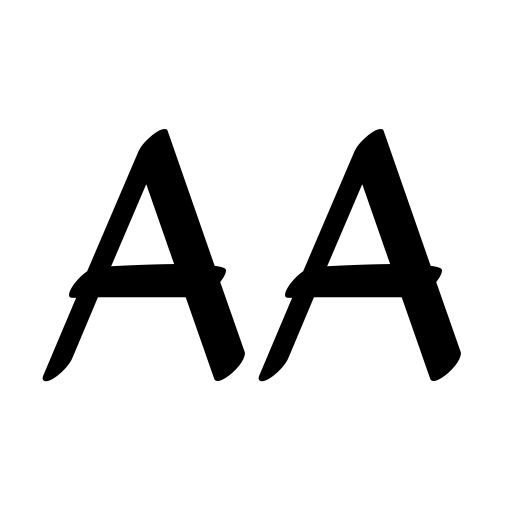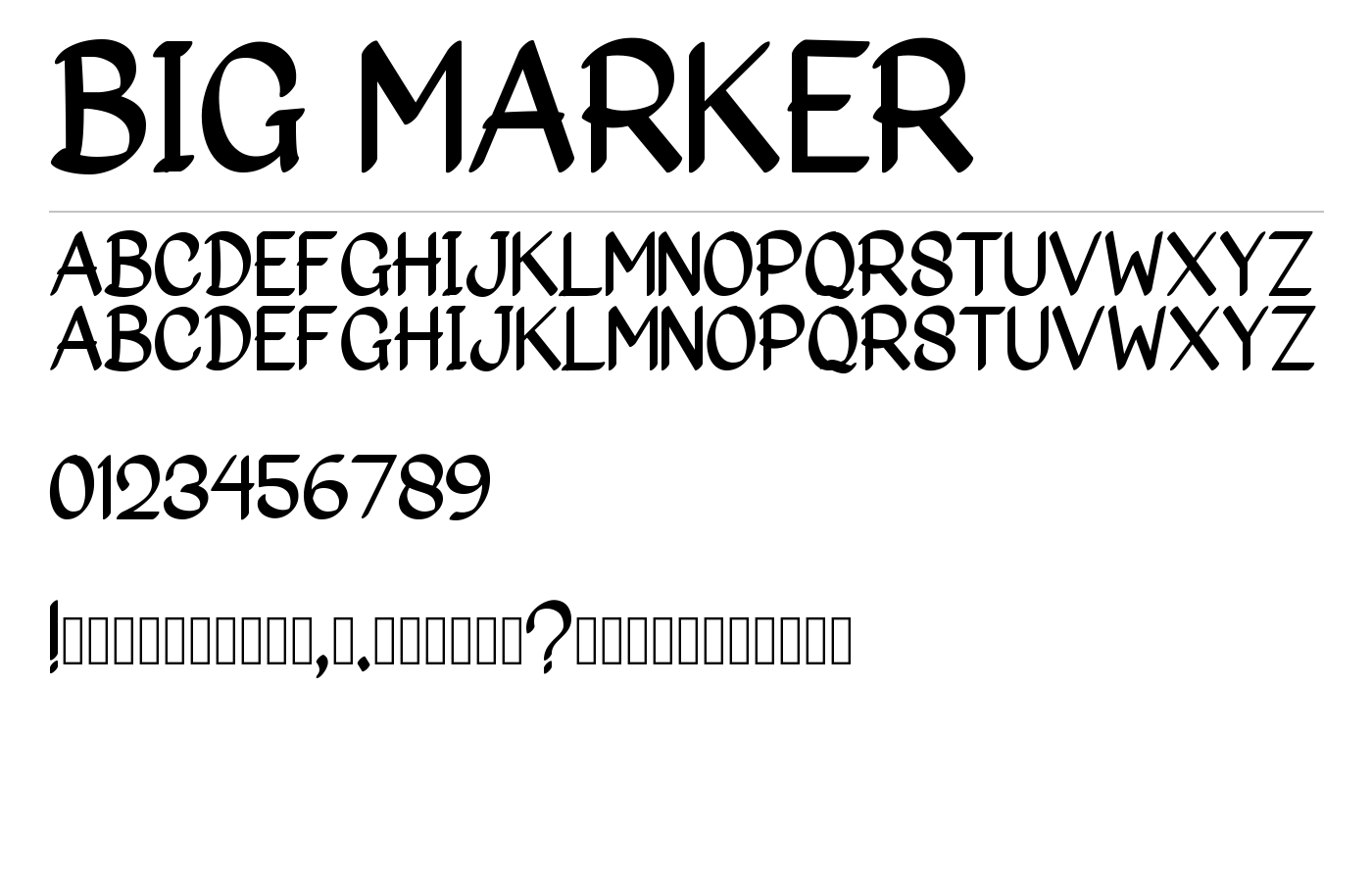
Big Marker is a playful and artistic serif font with a hand-drawn feel, featuring medium contrast strokes and unique, slightly irregular letterforms that give it a lively character. Its tall, narrow letters with distinctive serif shapes work well for creative and informal designs, making it ideal for logos, posters, and headlines that seek a quirky and friendly vibe. This font adds personality and charm, perfect for projects looking to stand out with a handmade, casual touch.
Big Marker Font
About Big Marker Font